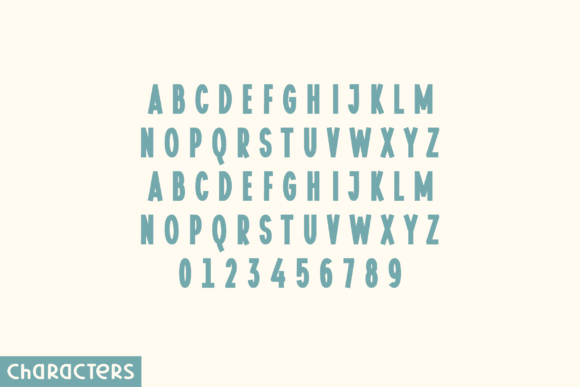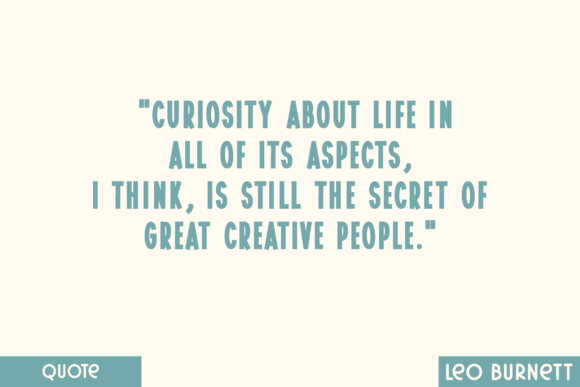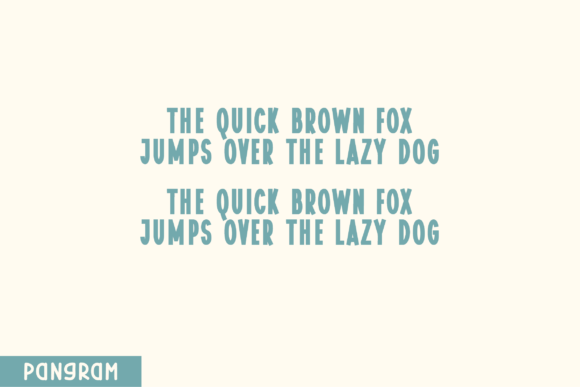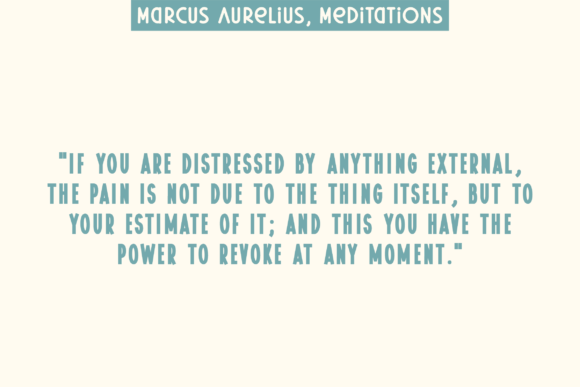
Introducing French Toast Font: A Unique Sans Serif for Creative Designs
Are you tired of using the same old fonts in your designs? Look no further than French Toast Font, a natural sans serif font that’s sure to add a touch of elegance and whimsy to your projects. What sets French Toast apart is its unique approach to font creation – every character’s indentation remains unchanged, making it a standout in the world of typography.
The Story Behind French Toast Font
French Toast Font is a carefully crafted sans serif font that’s designed to be both visually appealing and highly versatile. By preserving the natural indentation of each character, the font’s creator has achieved a distinctive look that’s both modern and approachable. This attention to detail makes French Toast Font perfect for a wide range of design applications, from quotes and notes to t-shirts and product design.
What Makes French Toast Font So Special?
So, what makes French Toast Font so unique? The answer lies in its creation process. Unlike other fonts that are designed by altering the nodes of each character, French Toast Font is crafted without changing a single node in each character’s indentation. This approach results in a font that’s not only aesthetically pleasing but also highly legible.
French Toast Font is a dream come true for designers and crafters looking to add a personal touch to their projects. Whether you’re creating a quote for a social media post, designing a t-shirt, or crafting a handmade card, French Toast Font is the perfect choice. Its unique style and versatility make it an excellent addition to any design toolkit.
Key Features of French Toast Font
- Natural Sans Serif: French Toast Font boasts a clean and modern sans serif design that’s perfect for a wide range of applications.
- Unique Indentation: The font’s distinctive indentation style sets it apart from other sans serif fonts.
- High Legibility: French Toast Font is designed to be highly legible, making it perfect for body text and captions.
- Versatile: From quotes and notes to t-shirts and product design, French Toast Font is the perfect choice for any creative project.
Tips and Tricks for Getting the Most Out of French Toast Font
Here are a few tips and tricks for getting the most out of French Toast Font:
- Pair it with a bold font: French Toast Font pairs perfectly with bold fonts, creating a striking contrast that’s sure to grab attention.
- Experiment with colors: French Toast Font looks great in a variety of colors, from bright and bold to soft and pastel.
- Use it for headlines and body text: French Toast Font is highly legible, making it perfect for both headlines and body text.
French Toast Font is a unique and versatile sans serif font that’s perfect for designers and crafters looking to add a personal touch to their projects. Its distinctive indentation style and high legibility make it an excellent choice for a wide range of design applications. Whether you’re creating quotes, notes, t-shirts, or product designs, French Toast Font is sure to become a favorite in your design toolkit.